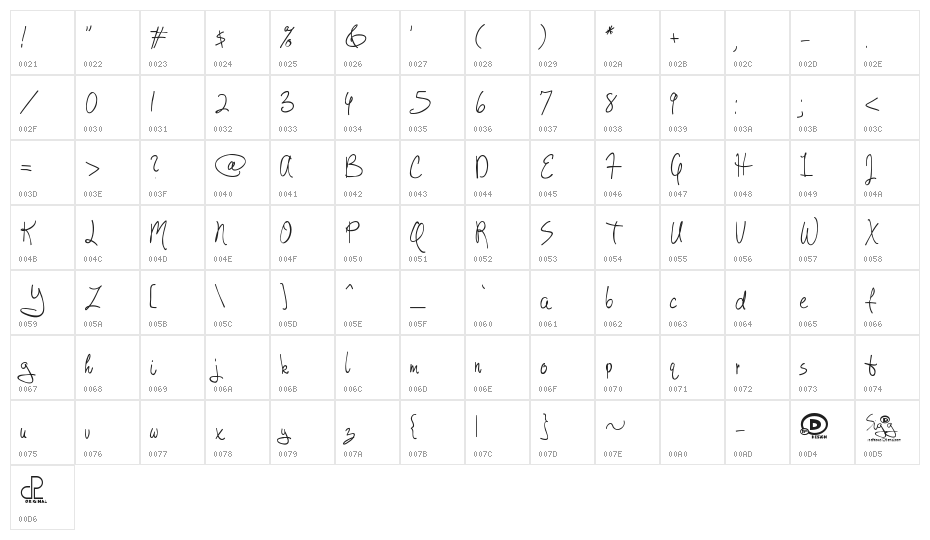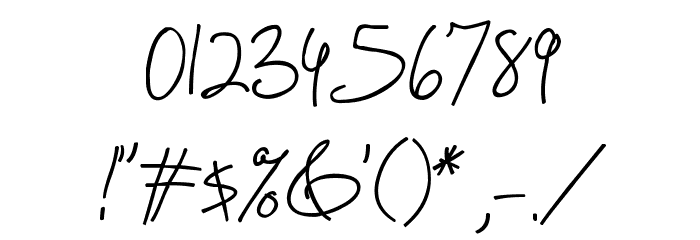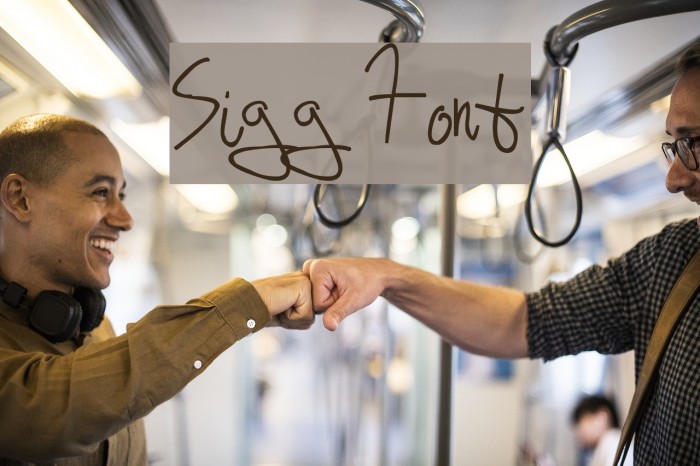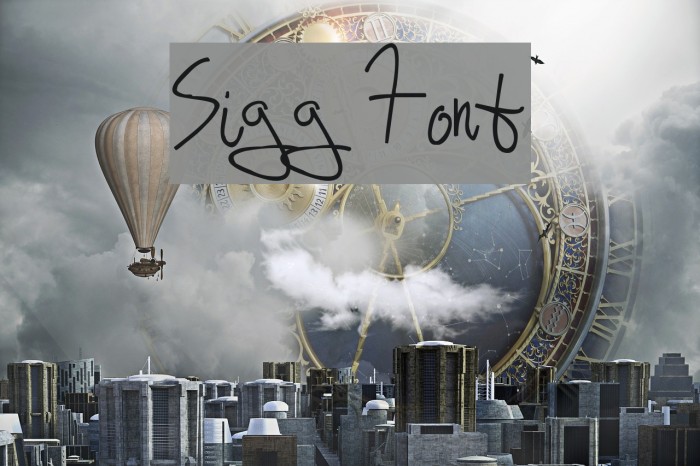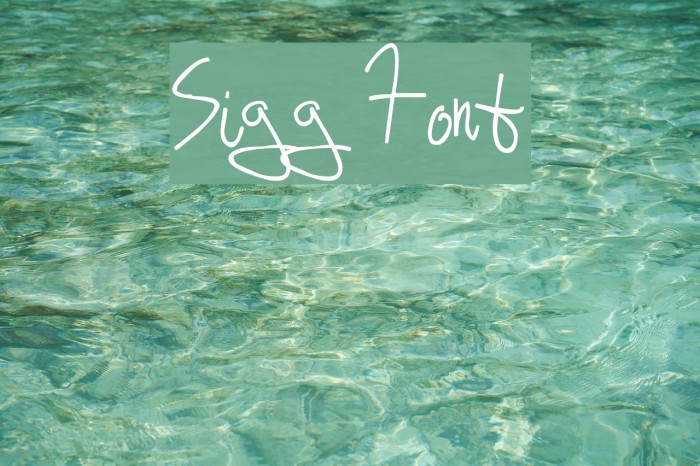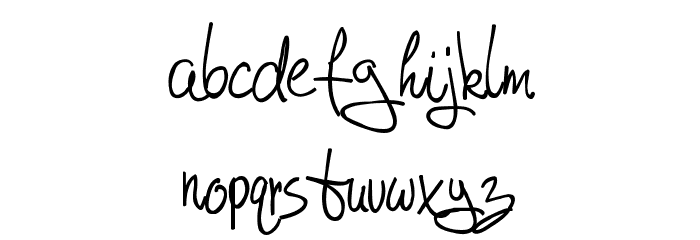
Sigg Font
Sigg Description
This font features a playful and casual handwritten style, characterized by its fluid and dynamic strokes. The letters exhibit a natural, free-flowing form, with varying stroke widths that add a sense of movement and personality. The uppercase letters are tall and slightly narrow, while the lowercase letters maintain a consistent height, contributing to a cohesive appearance. The numerals and special characters are designed with the same lively flair, ensuring a harmonious look across all text elements. This font's informal and approachable style makes it suitable for projects that aim to convey warmth and creativity.